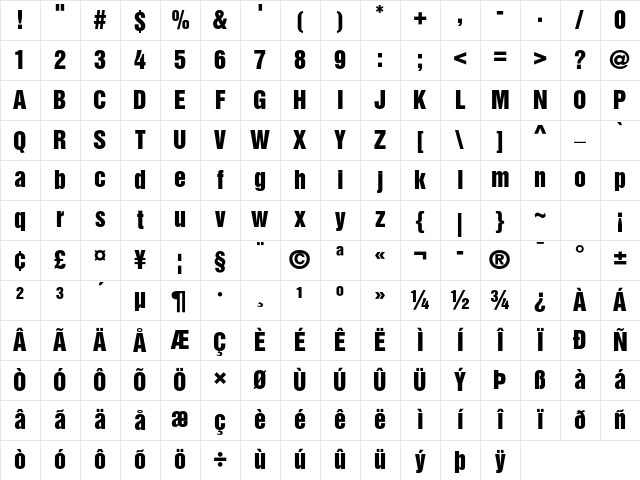
Helvetica Inserat LT Std Roman
Designer: Max Miedinger
Design Context for Helvetica Inserat LT Std
Helvetica Inserat LT Std is a composed and adaptable typeface that performs quietly and consistently across a wide range of design contexts. Its slender proportions lend an understated elegance to any composition.